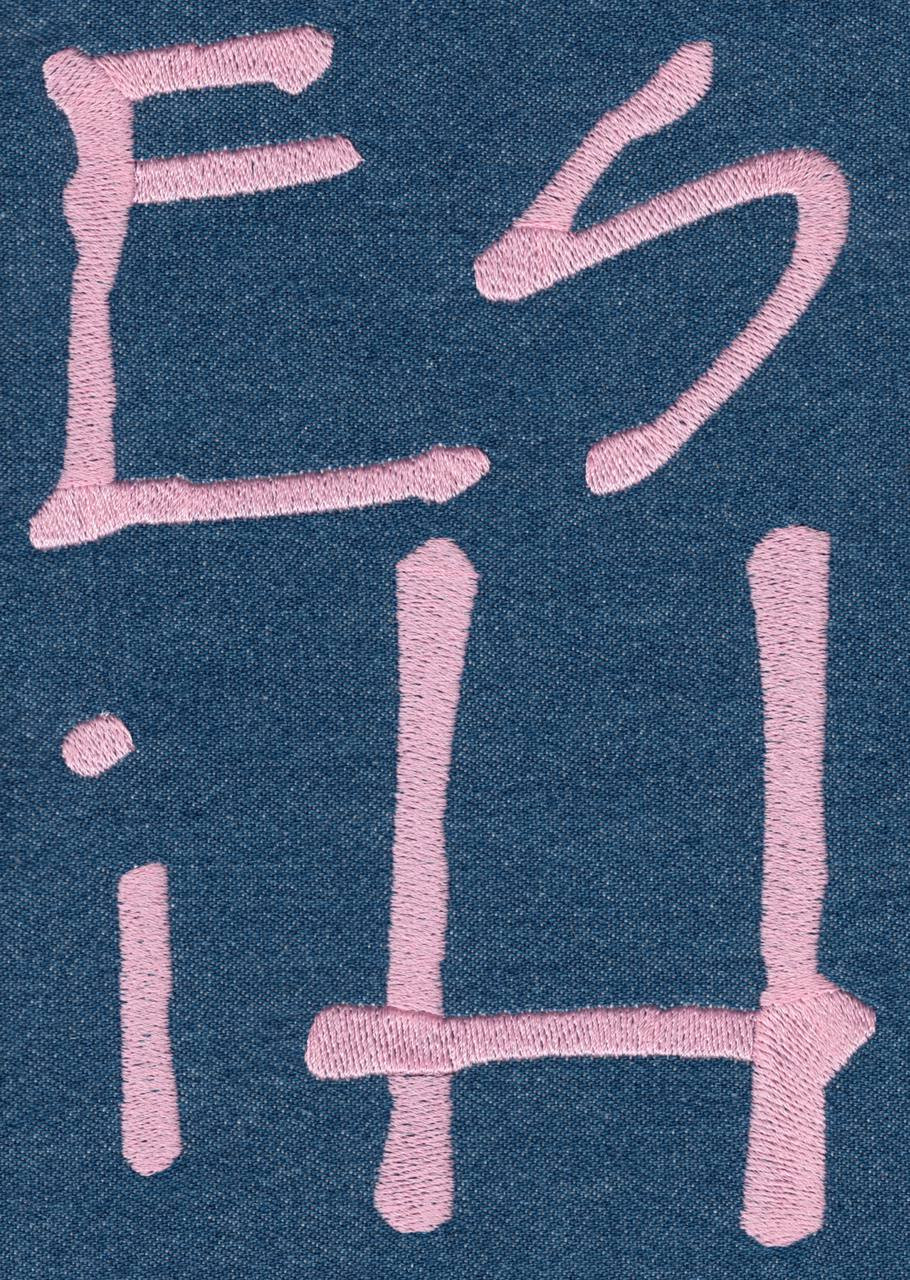
632 Jeans Font JUMBO SatinFill
Jeans Font JUMBO SatinFill Font comes in 3", 4", 5", 6" and 7" heights based on the capital "A". Includes uppercase letters, lowercase letters numbers and six punctuation marks. Letter columns are intentionally designed with crooked/wobbled edges.